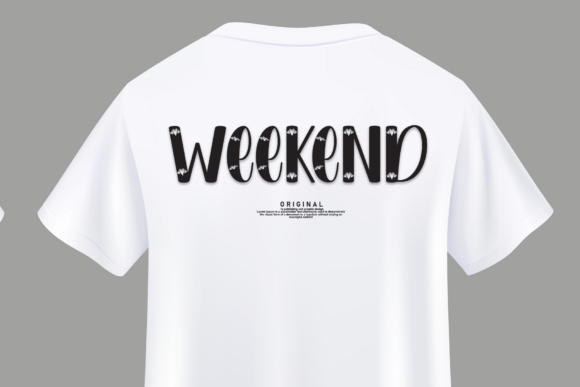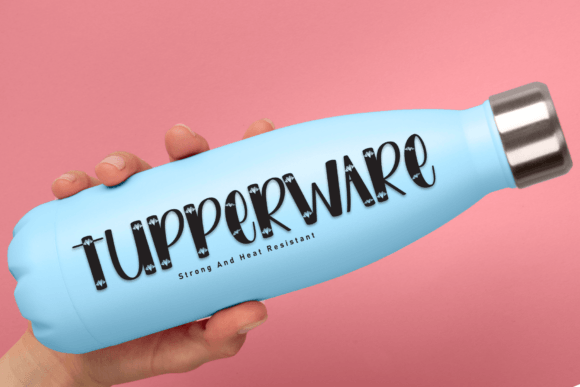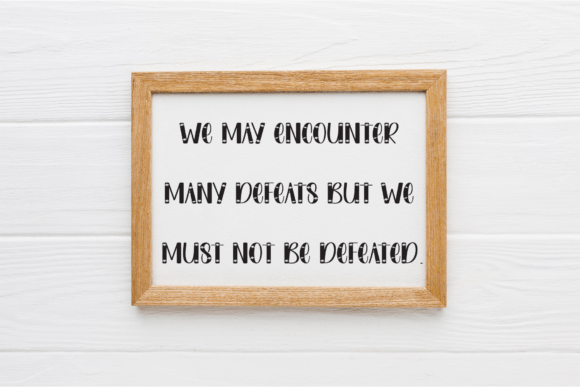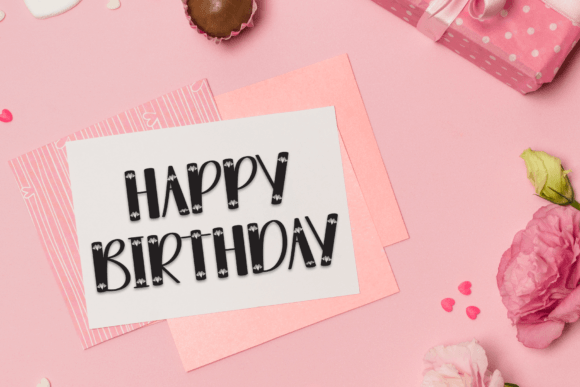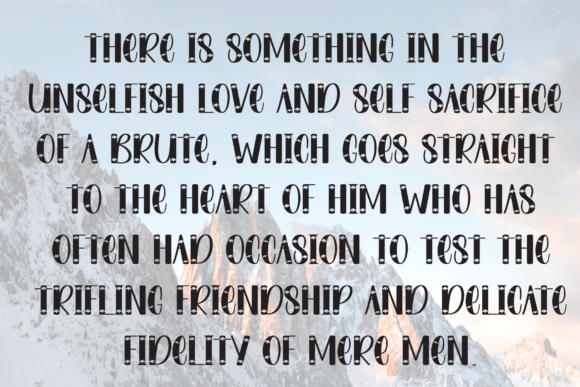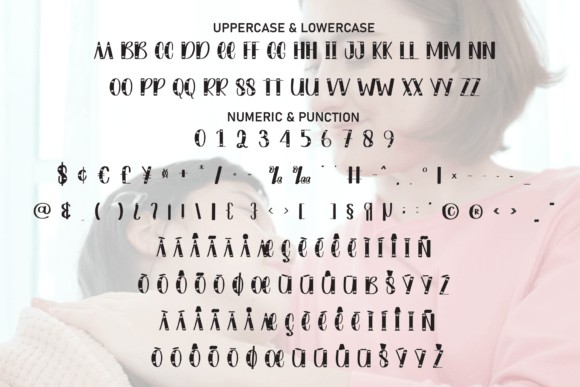
Have you ever been rummaging through your grandmother’s attic, uncovering old letters and family heirlooms that tell a story of love and laughter? As you unfold the yellowed pages, you can almost feel the emotions and warmth emanating from the handwritten words. It’s in these moments that we’re reminded of the power of handwritten fonts to evoke feelings and create connections.
Enter the Best Mama Font, a charming display font that brings a similar sense of warmth and friendliness to your designs. This delightful typeface is perfect for crafting heartwarming wedding invitations, expressive cards, and other designs that require a touch of whimsy. Whether you’re a seasoned designer or a creative enthusiast, the Best Mama Font is an invaluable addition to your toolkit, offering a unique and playful way to bring your visions to life.
Best Mama Font Key Features
- Font Family: Best Mama is a sans-serif font family designed specifically for display and text use.
- Size: Best Mama Font family includes 12 styles, ranging from Thin to Extra Bold, with corresponding font weights.
- Resolution: Optimized for use at resolutions up to 300 DPI, making it suitable for a wide range of applications.
- Unique Characteristics: Best Mama Font features a unique blend of modern and classic design elements, with a focus on readability and versatility.
Best Mama Font Review
I recently had the chance to work with the Best Mama Font, and I have mixed feelings about it. Here’s my honest review.
- Cute and playful, perfect for kids’ content or family-related projects.
- Highly legible, even at smaller font sizes.
- The font is well-behaved, with no major quirks or irregularities.
- Limited font weights and styles, which can make it difficult to achieve a consistent design look.
- The font may not be suitable for formal or professional projects, as it comes across as too casual.
- Some users may find the design a bit too ‘babyish’ for their taste.
While the Best Mama Font has its charms, I wouldn’t recommend it for every project. It’s best suited for family-friendly content, children’s books, or any other context where a playful, approachable feel is desired. With some careful selection and styling, it can be a great addition to your design toolkit.
Tips for Getting the Most Out of Best Mama Font
To get the most out of Best Mama Font, use it in conjunction with a bold and playful design. This font is perfect for adding a touch of whimsy and personality to your designs. Experiment with different font sizes, colors, and combinations to create a unique look.
Best Mama Font is perfect for:
- Creating playful and whimsical designs
- Adding a touch of personality to your branding
- Designing children’s products and materials
- Creating social media graphics and posts
Great Vibes is a beautiful and elegant font that’s perfect for creating stunning headlines and titles. It’s ideal for use in travel websites, food blogs, and other creative projects. Compared to Best Mama Font, Great Vibes has a more elegant and refined feel, making it suitable for projects that require a touch of sophistication and style.